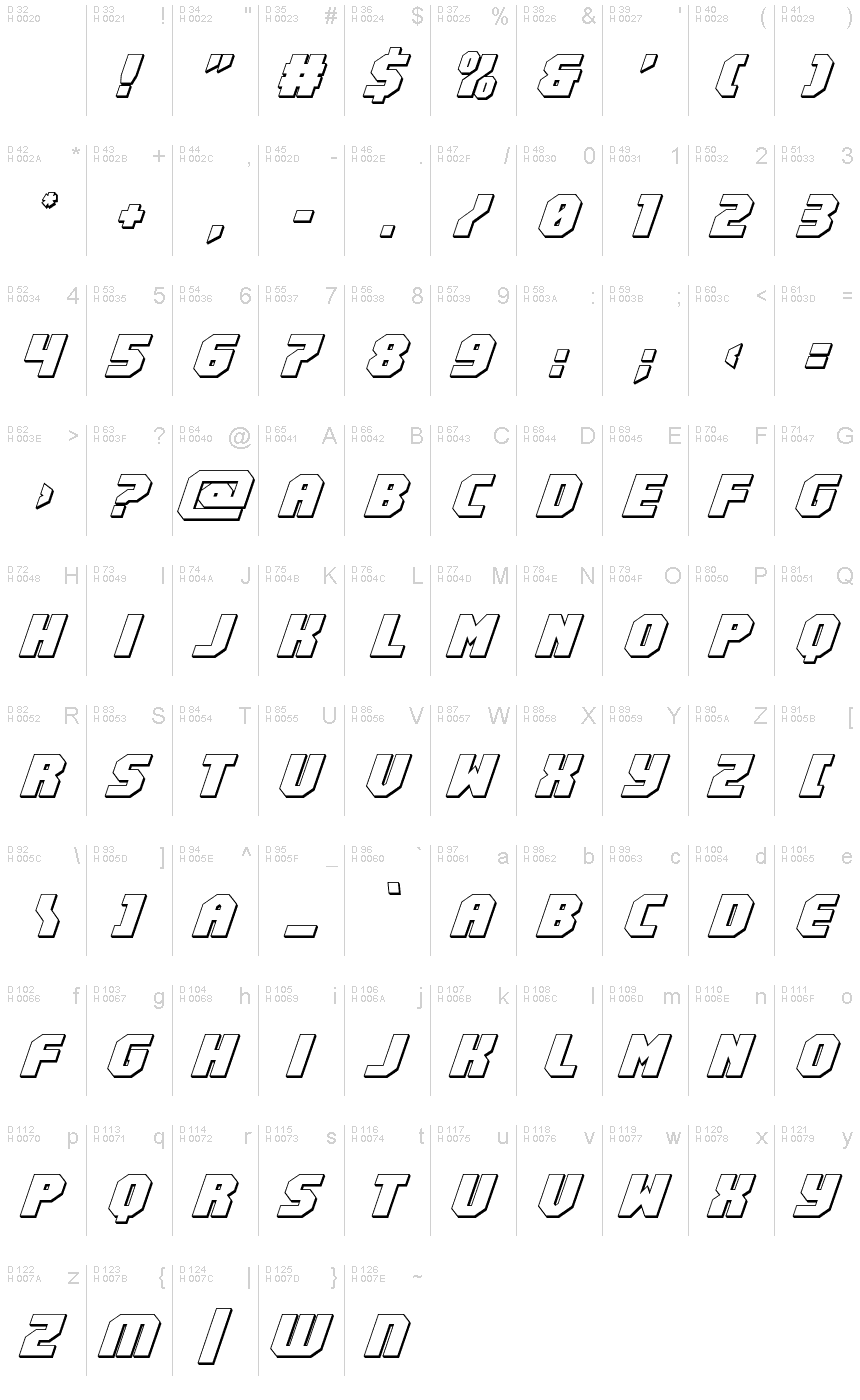
Metal Sentinel 3D Italic
Metal Sentinel 3D Italic is a bold, condensed display font designed by Daniel Zadorozny. This eye-catching font is full of character and depth with its 3D style. It can give any creative project a unique and dynamic look – perfect for logos, titles, or posters that require an extra level of impact. With its texture and structure, Metal Sentinel 3D Italic can also be used to add a vintage charm to any design project.